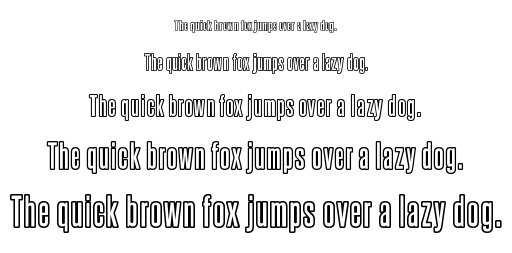
Steelfish is a condensed headline font family I created in in 2001. The original cut included regular, bold & outline styles. Steelfish was okay but it was in need of a good tuneup to perform well as a web headliner in the 2010’s. After rebuilding it, I expanded it into seven weights with italics.